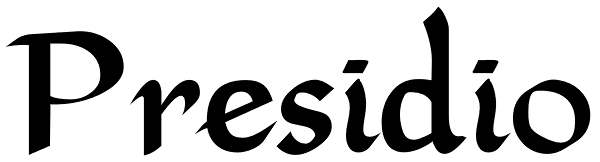
Presidio
Presidio is a stylized version of the hand-lettered calligraphy typical of the Mission era of early California. This lettering was often unique to an individual hand, but the characters shared a common style, and had their roots in the Middle Ages...